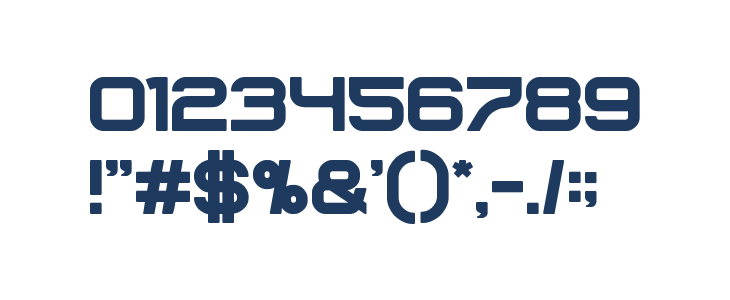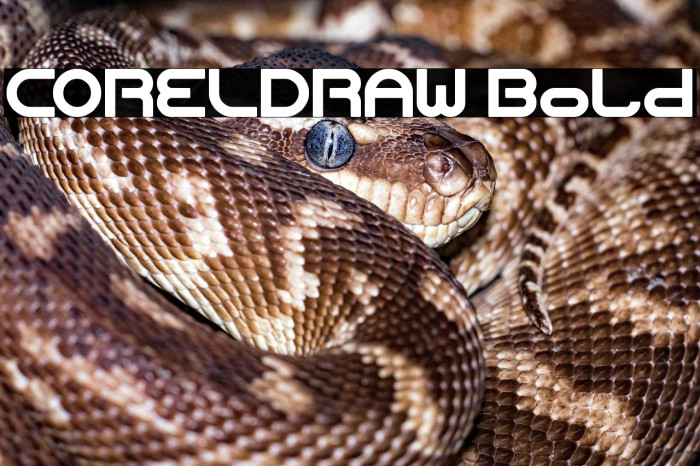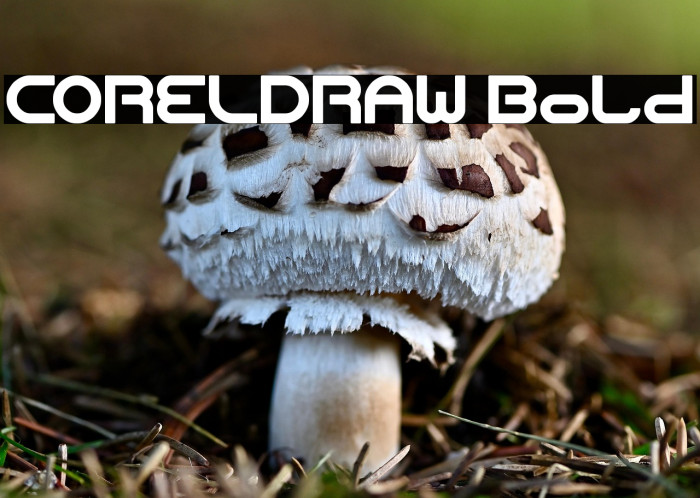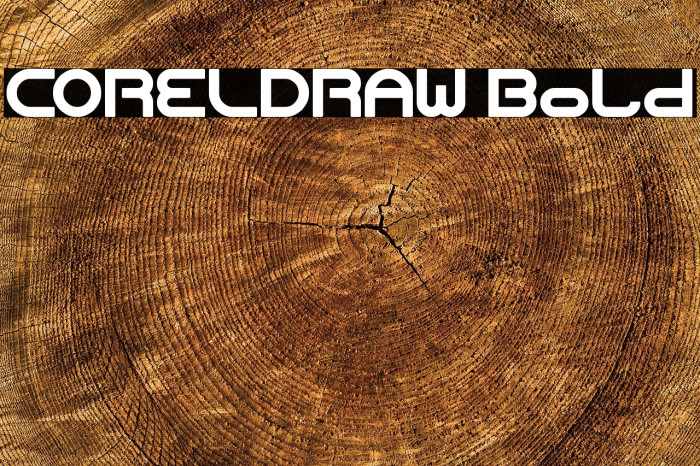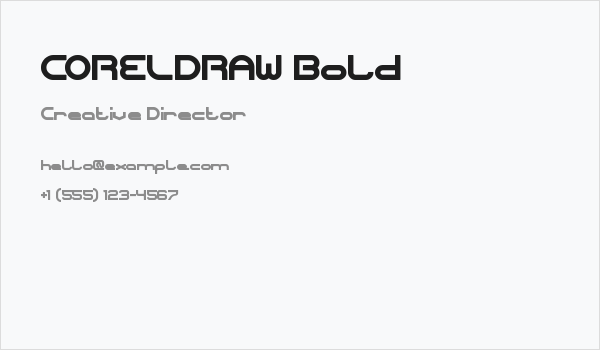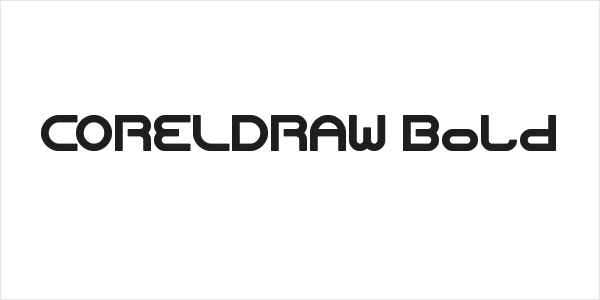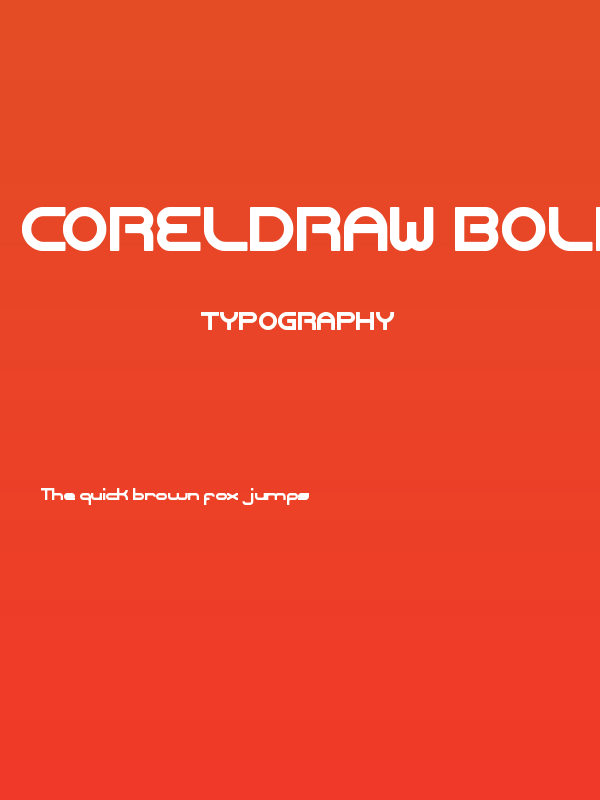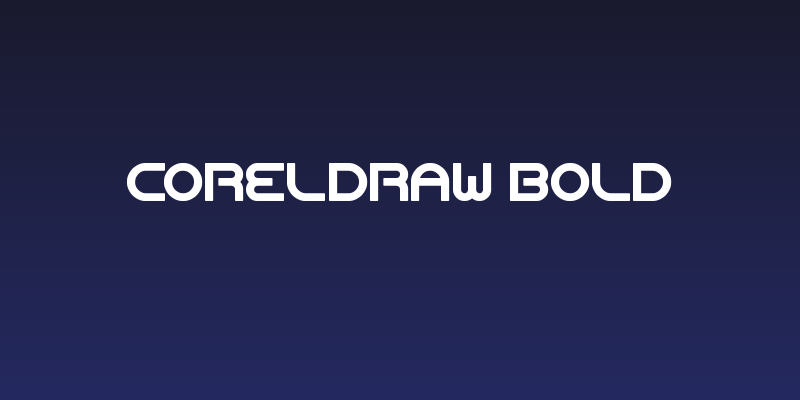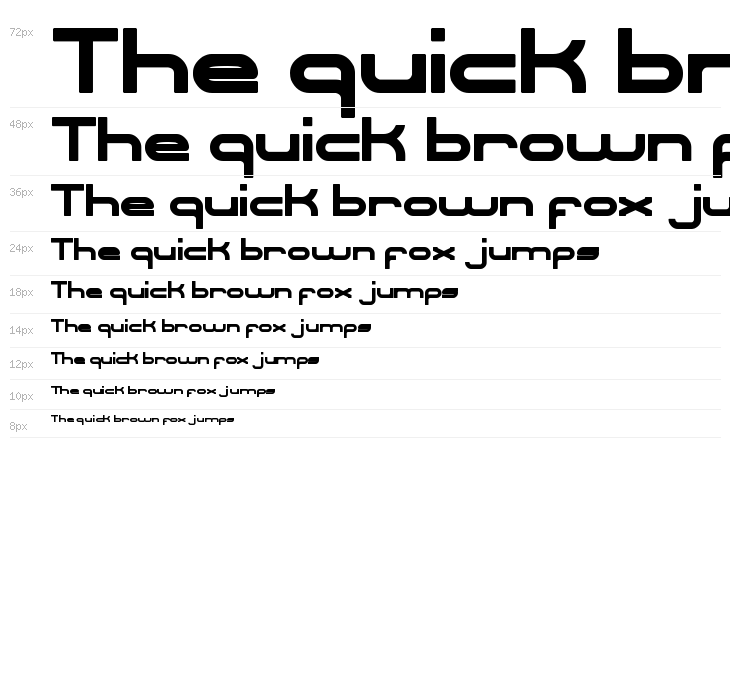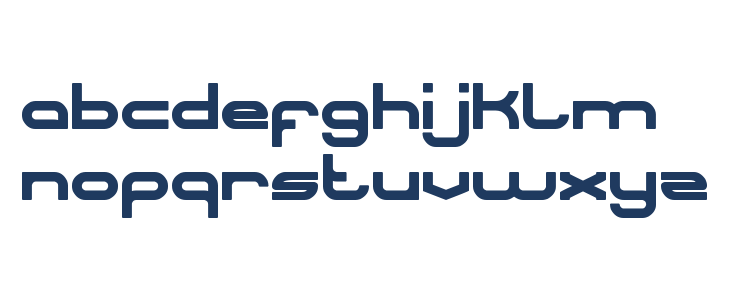
CORELDRAW Bold Font
CORELDRAW Bold Description
This font features a bold, geometric design with a modern and futuristic aesthetic. The characters are constructed with clean, straight lines and rounded edges, creating a sense of uniformity and balance. The uppercase and lowercase letters maintain a consistent height, contributing to a cohesive look. The numerals and special characters follow the same design principles, ensuring a seamless integration across all text elements. The font's style is both striking and versatile, making it suitable for various design applications.
Proposed ProjectsIdeal for technology branding, futuristic posters, video game titles, and modern logo designs.